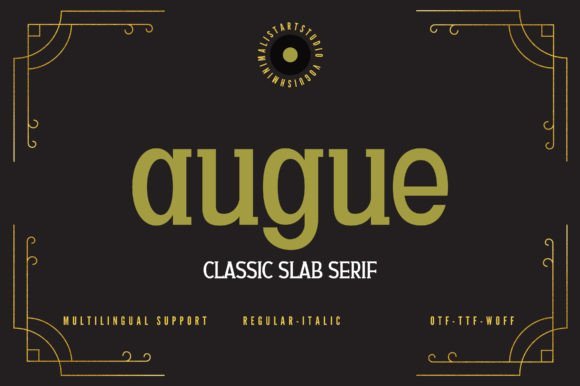
Introduction to Augue Font
Augue is a thick, elegant and geometric slab serif typeface.
It is suitable to be used in headings and body texts It can also be used for packaging design, perfume design, cosmetics design, web design, magazine covers, etc.